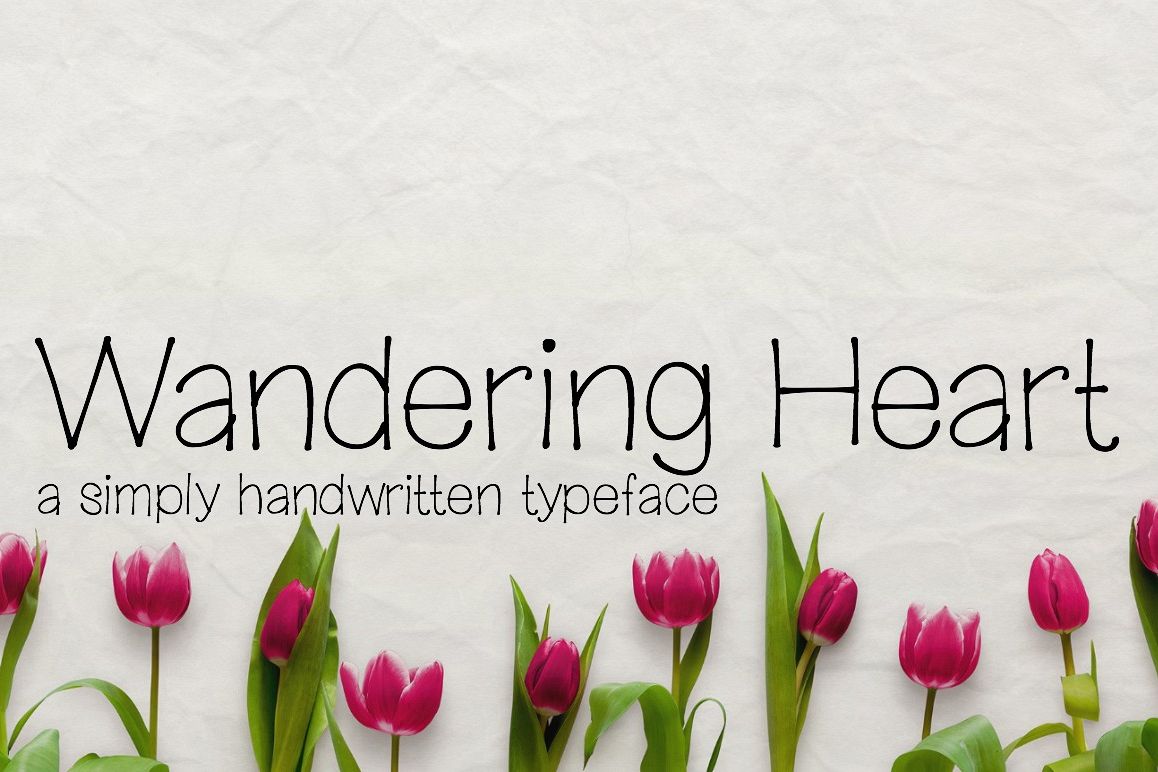
Wandering Heart- Handwritten Font
This font is being re-released after adding Latin extensions to support most European languages!  It is versatile for many different designs as a simple inky handwritten sans serif!